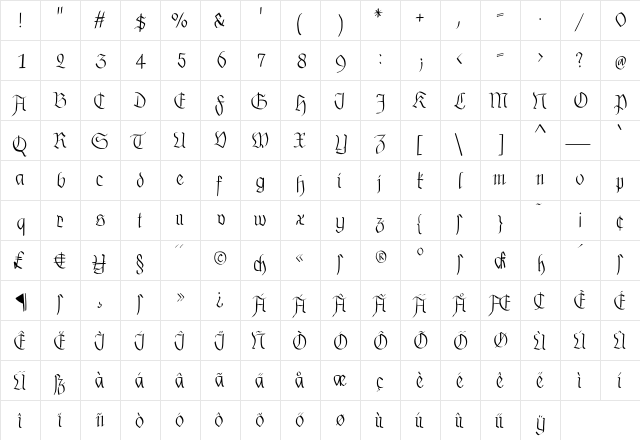
MKalligFrax Regular
Design Context for MKalligFrax Typeface
MKalligFrax is a composed and adaptable typeface that performs quietly and consistently across a wide range of design contexts.